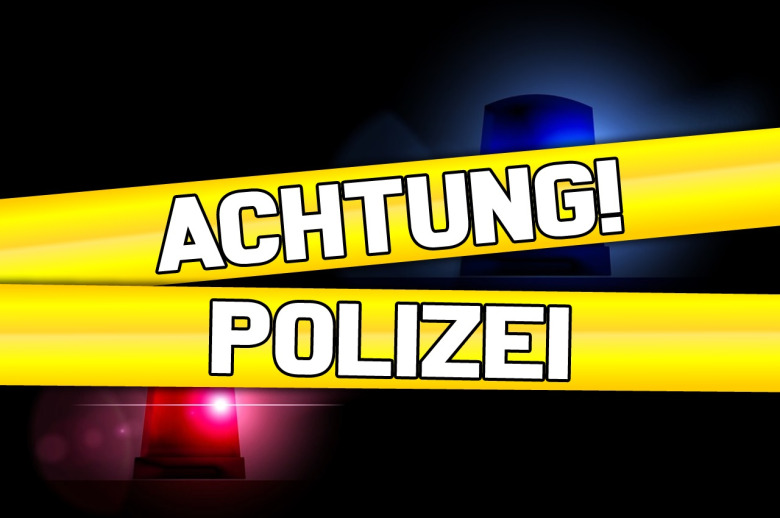
Achtung! Polizei Font
Achtung! Polizei is a high quality Sans Serif font that is designed by Chequered Ink and is available for free download and personal use. The free version provides all uppercase and lowercase letters and a few special characters too.